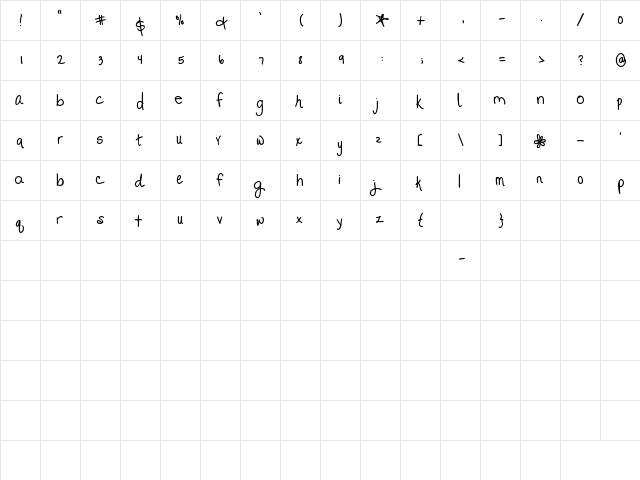
Promised Freedom Regular Font Preview
Promised Freedom Regular
Promised Freedom Regular Font Details
| Designer | Kimberly Geswein |
Design Context for Promised Freedom Typeface
Promised Freedom is a composed and adaptable typeface that performs quietly and consistently across a wide range of design contexts.